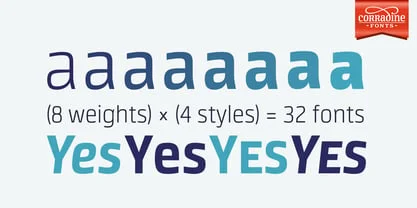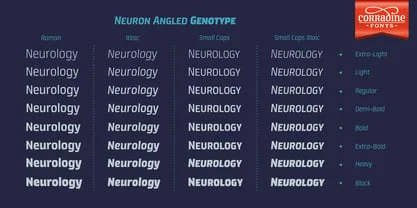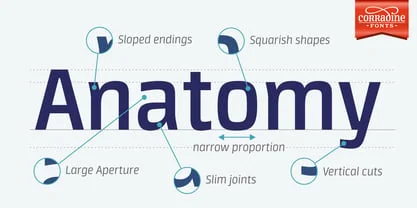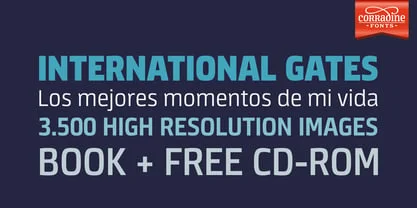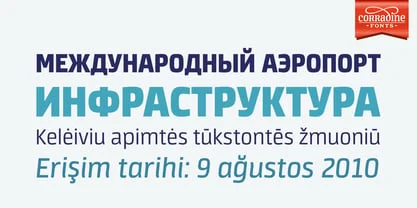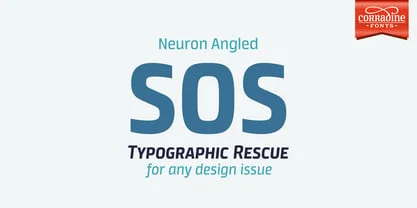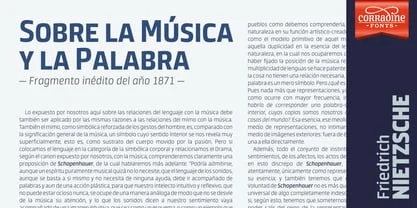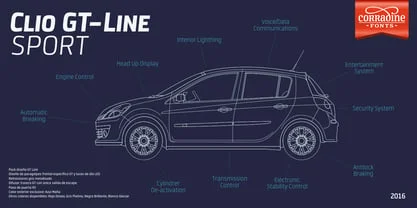
Neuron Angled Font
Neuron Angled Font is perfect for tech innovation branding, scientific research presentations, neural network visualizations, artificial intelligence companies, biotech startups, medical technology logos, cognitive science materials, futuristic app interfaces, brain-inspired marketing campaigns, and cutting-edge neuroscience communications.
What makes Neuron Angled Font so exciting is its neural-inspired architecture that combines scientific precision with dynamic angular geometry, creating typography that embodies the complexity and intelligence of neural networks while maintaining exceptional functionality. This innovative typeface represents the intersection of neuroscience and design, delivering visual communication that connects with audiences exploring the frontiers of cognitive technology.
The Neuron Angled Font family includes light, regular, medium, bold, and black weights, complete with angular design features, neural-inspired styling elements, and scientific characteristics that provide designers with comprehensive tools for creating intelligent and memorable typography that celebrates the fascinating world of neuroscience and cognitive innovation.
Activate cognitive sophistication with Neuron Angled Font, a scientifically-inspired typeface that brings neural intelligence and angular precision to cutting-edge design projects. This exceptional font embodies the perfect fusion of scientific accuracy and design innovation, making it the ideal choice for brands that represent cognitive advancement and neural technology breakthroughs.
The intelligently angled letterforms of Neuron Angled Font showcase neural elegance with scientific character that creates instant recognition of cognitive sophistication and technological intelligence. Each character displays meticulous attention to maintaining the neural-inspired geometry that defines cognitive complexity while ensuring superior readability and professional versatility. The font's angular construction and neural spacing contribute to its intelligent appearance and scientific appeal.
Neuroscience companies and cognitive technology organizations consistently choose Neuron Angled Font for projects requiring scientific authenticity and neural sophistication. The comprehensive character set includes uppercase and lowercase letters, numerals, extensive punctuation, international accents, and neural-inspired elements that provide complete support for scientific branding applications and cognitive design compositions.
The cognitive versatility of Neuron Angled Font ensures exceptional performance across both traditional print and modern digital platforms. Whether developing neuroscience brand identities, creating cognitive technology marketing, or designing scientific research materials, this remarkable typeface delivers consistent intelligence that resonates with audiences exploring the exciting possibilities of neural science and cognitive innovation.
Transform your most intelligent projects with Neuron Angled Font. This extraordinary typeface brings neural sophistication and scientific precision to typography, making it the essential choice for designers who create experiences that celebrate the remarkable complexity and endless possibilities of cognitive science and neural technology.